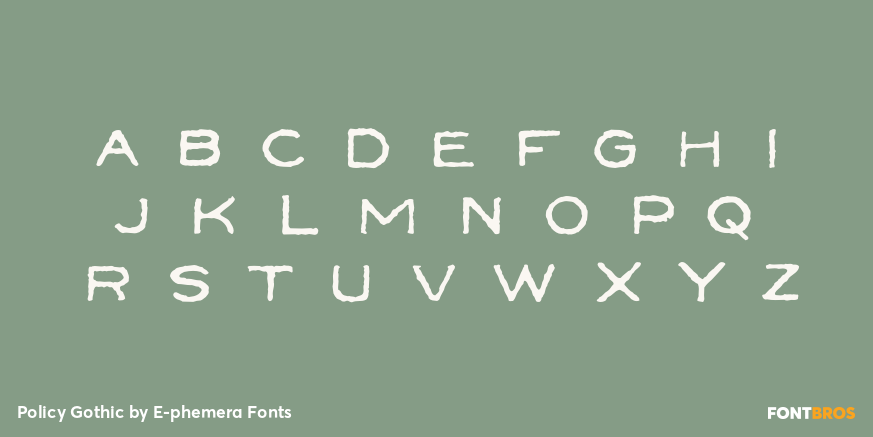
Policy Gothic
Font Family by E-phemera Fonts
Policy Gothic is derived from the boilerplate on a vintage insurance policy, and in a former life may have been Engraver's Gothic or something like it. A rough all-caps sans serif, it's great for designing forms and other "official" paperwork with a vintage feel. The font features a full international character set including various currency and other commercial symbols.